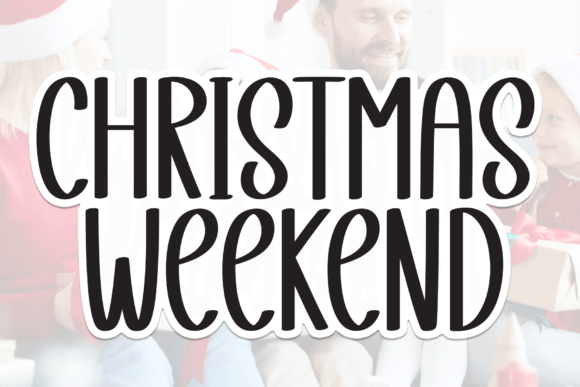
Christmas Weekend Font: A Festive Display Font for the Holiday Season
The holiday season is upon us, and what better way to get into the spirit than with a festive font that captures the joy and warmth of Christmas? Introducing “Christmas Weekend,” a playful and charming display font that’s perfect for adding a touch of holiday cheer to your designs.
What is Christmas Weekend Font?
Christmas Weekend is a festive display font that embodies the magic of the holiday season. With its playful strokes and hint of merriment, this font is designed to bring a smile to your face and a touch of whimsy to your designs. Whether you’re creating Christmas cards, festive banners, or seasonal event invitations, Christmas Weekend is the perfect choice.
This font is not just a typographic delight; it’s an experience. It’s a way to transport your audience to a world of wonder and enchantment, where the cares of the world melt away, and all that’s left is the joy and warmth of the holiday season.
Uses for Christmas Weekend Font
Christmas Weekend font is incredibly versatile and can be used for a wide range of projects, including:
- Christmas cards and invitations
- Festive banners and signage
- Seasonal event invitations and flyers
- Holiday-themed social media graphics and posts
- Christmas party decorations and printables
Whether you’re a designer, a DIY enthusiast, or a business owner looking to add some holiday cheer to your marketing materials, Christmas Weekend font is the perfect choice.
Features of Christmas Weekend Font
So, what makes Christmas Weekend font so special? Here are just a few of its features:
- Playful strokes and a hint of merriment
- Whimsical and charming design
- Perfect for holiday-themed designs
- Easy to read and understand
Benefits of Using Christmas Weekend Font
Using Christmas Weekend font in your designs can bring a range of benefits, including:
- Adding a touch of holiday cheer to your designs
- Creating a festive and celebratory atmosphere
- Conveying the joy and warmth of the holiday season
- Standing out from the crowd with a unique and playful font
- Making your designs more engaging and fun
You can also experiment with different design elements, such as adding graphics or images, to create a unique and eye-catching design.
Tips and Tricks for Using Christmas Weekend Font
Here are a few tips and tricks to help you get the most out of Christmas Weekend font:
- Use a bold color scheme to make your design stand out
- Add some festive graphics or images to enhance the design
- Experiment with different font sizes and styles to create visual interest
- Use the font in combination with other design elements, such as patterns or textures
Christmas Weekend font is a festive and playful display font that’s perfect for adding a touch of holiday cheer to your designs. With its whimsical charm and hint of merriment, this font is sure to capture the spirit of the holiday season. Whether you’re a designer, a DIY enthusiast, or a business owner, Christmas Weekend font is a great choice for any holiday-themed project.